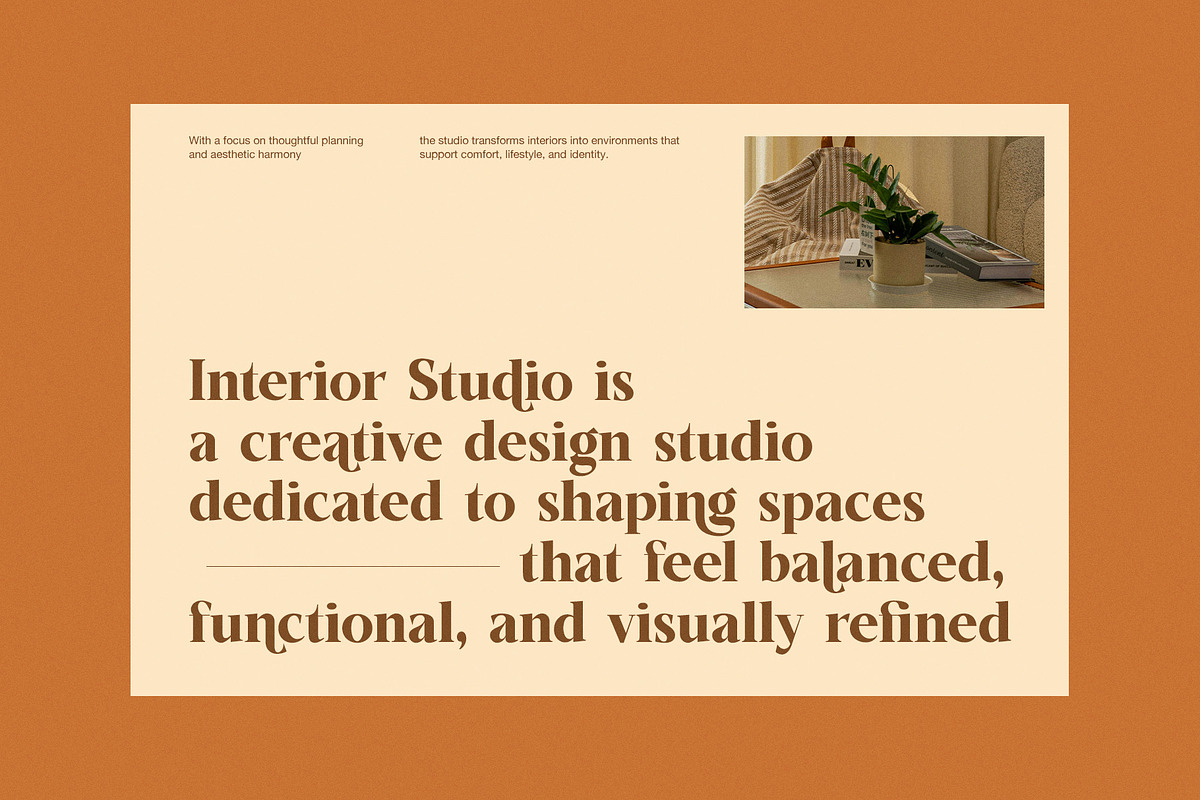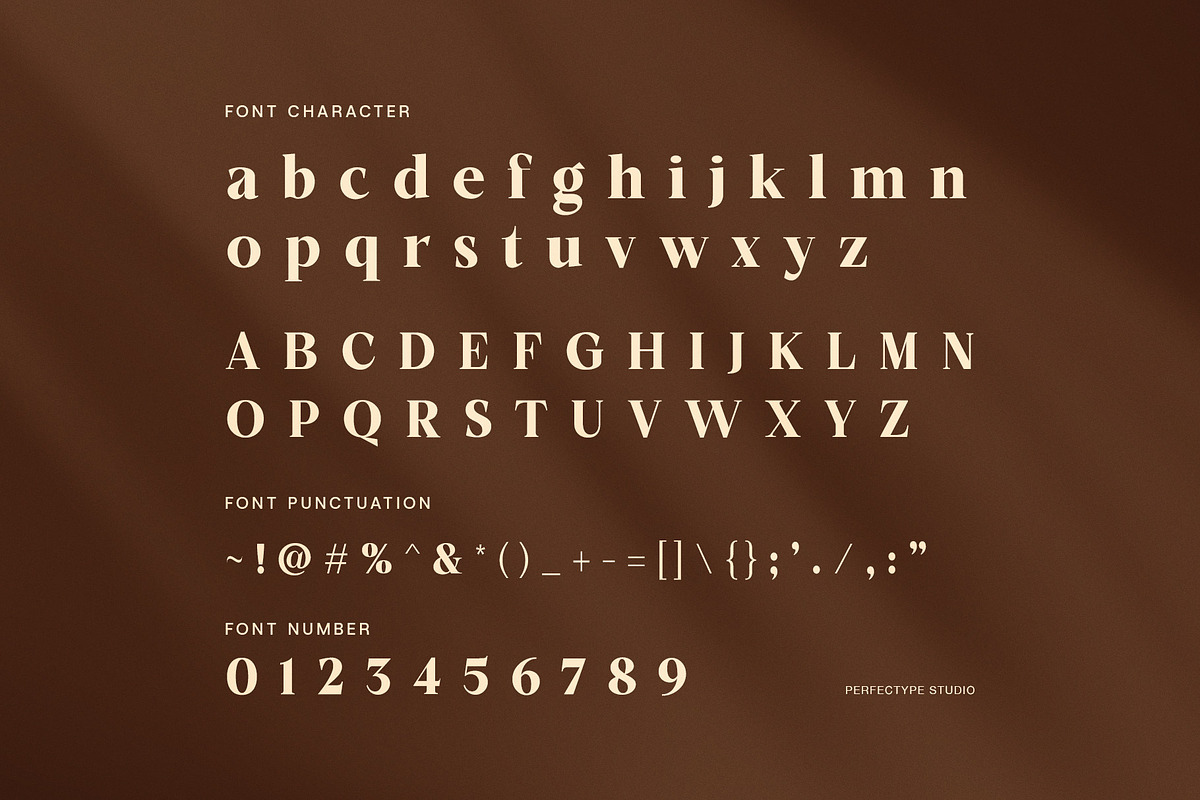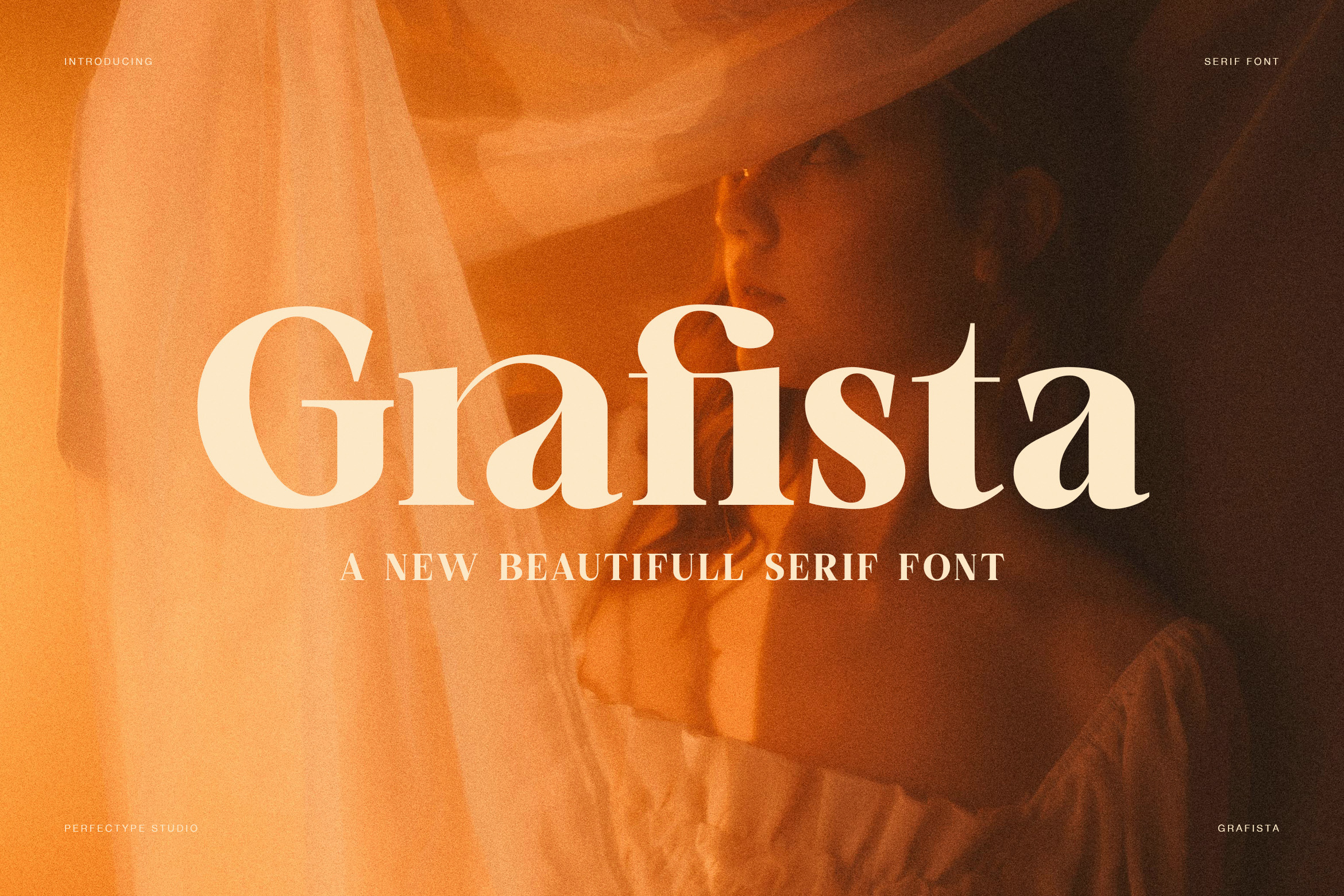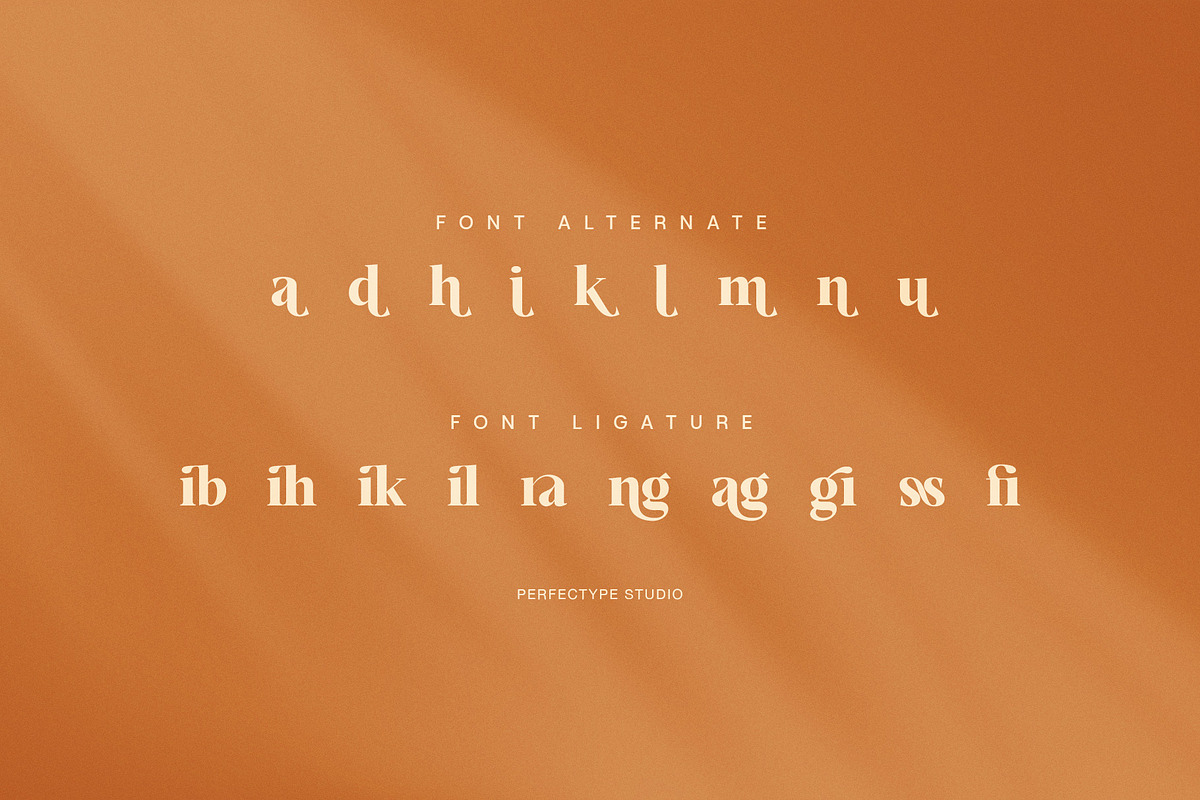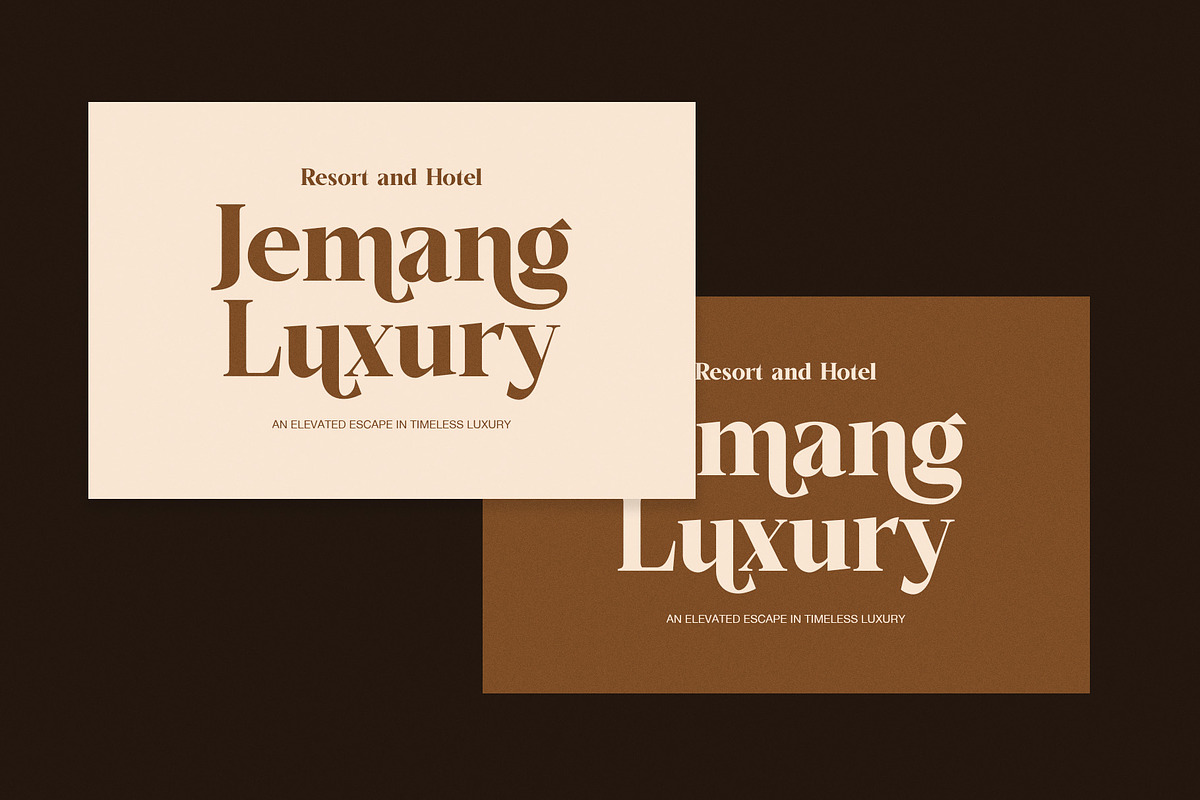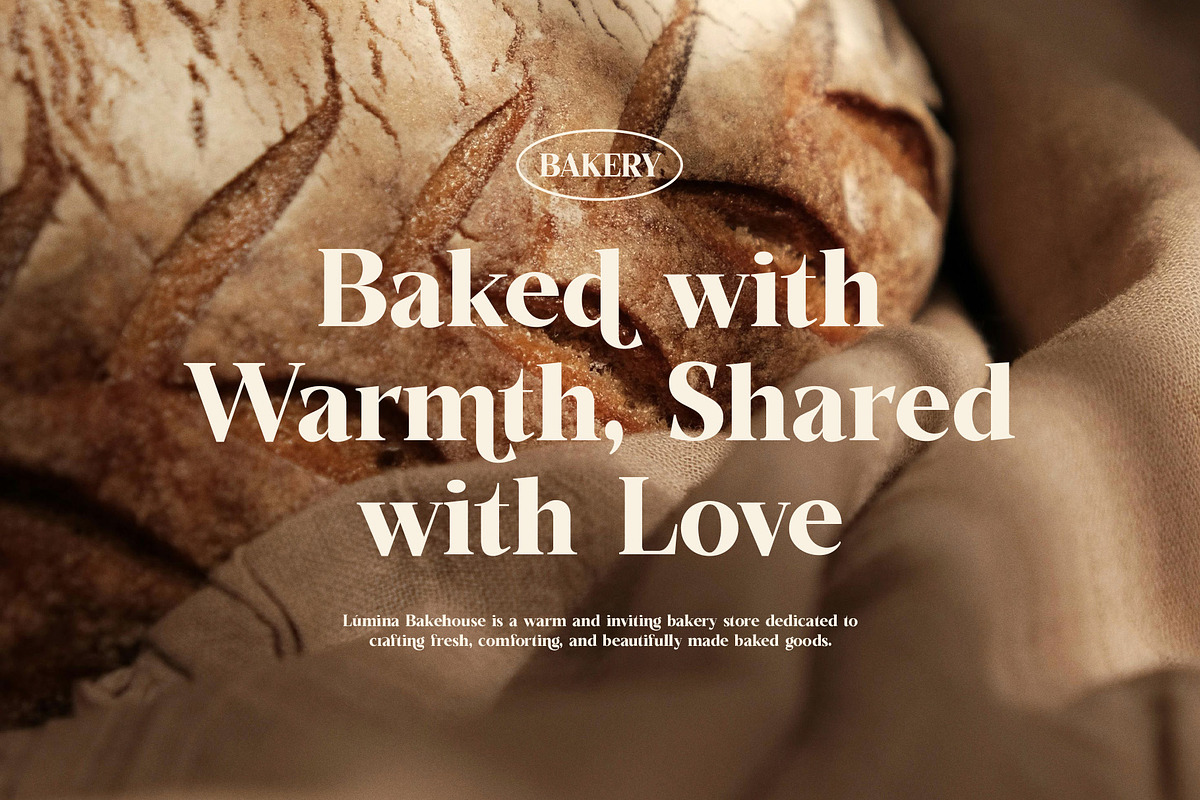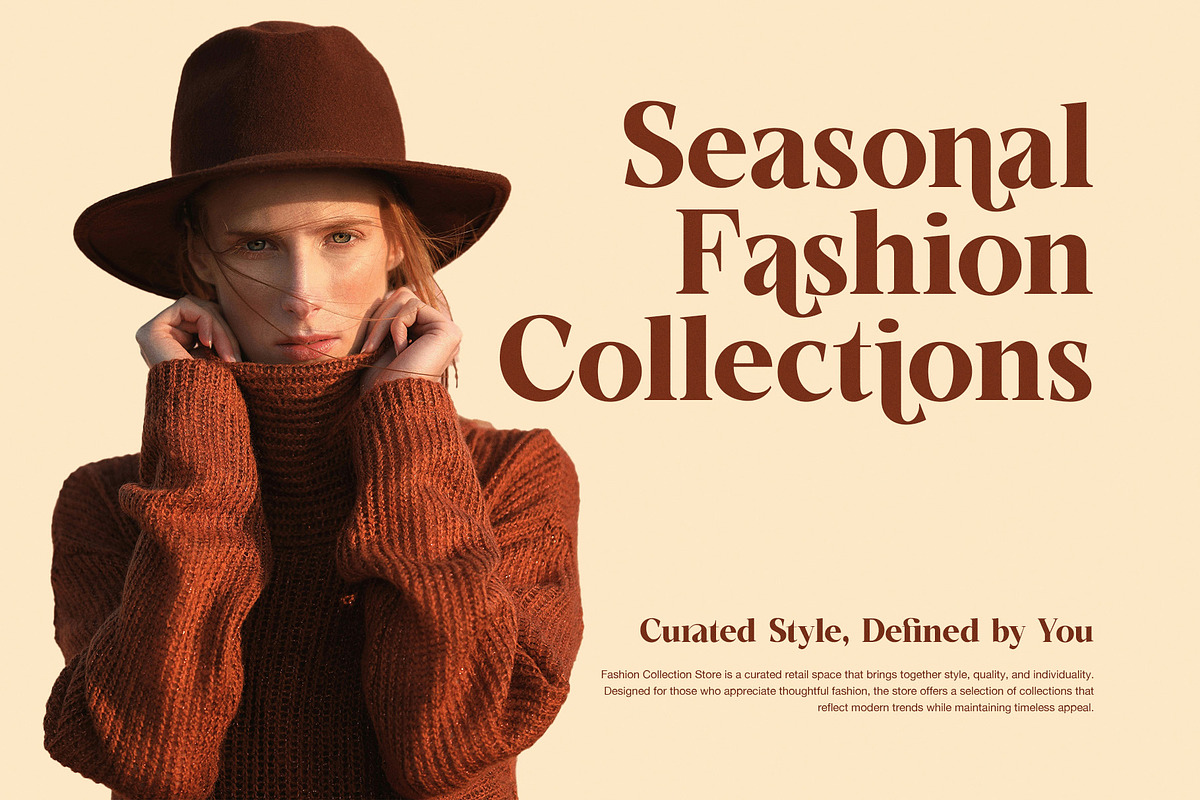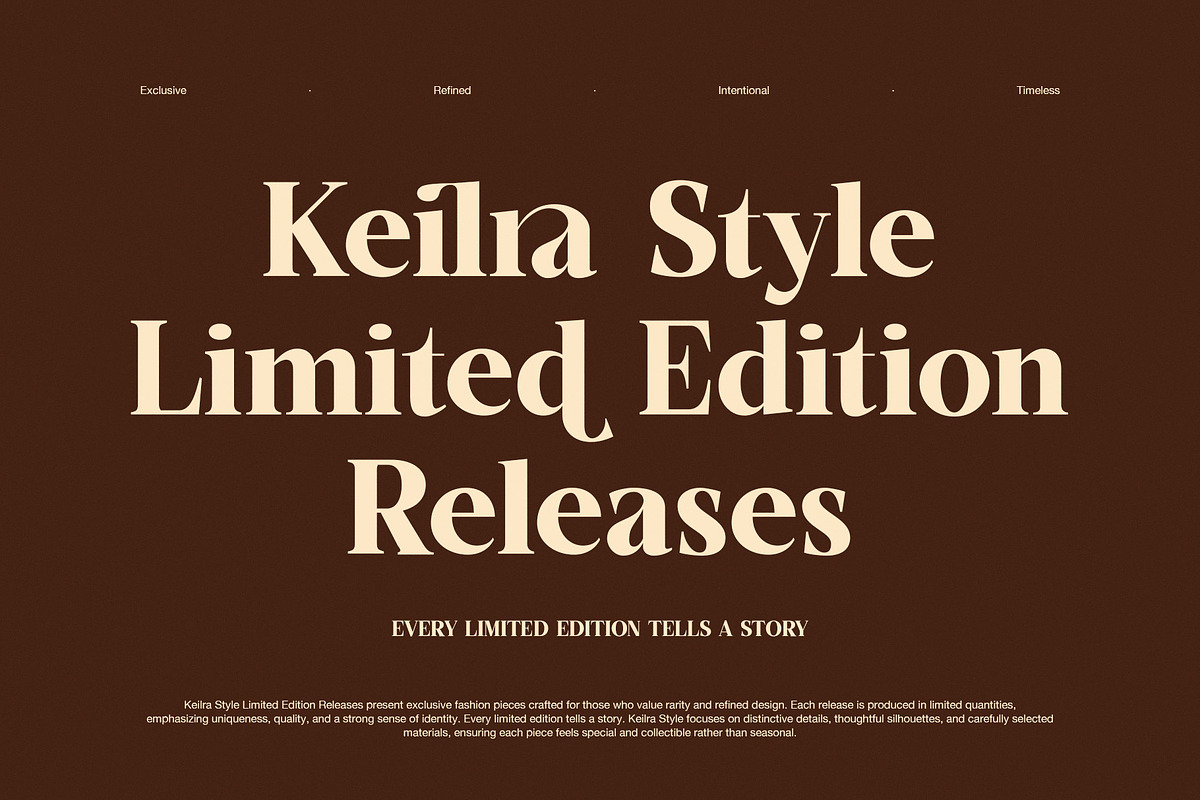
Grafista Elegant Luxury Serif Font
Grafista is an elegant luxury serif font designed to bring refinement and warmth to modern branding. It blends classic serif structure with soft curves and balanced proportions, so every word feels calm, confident, and timeless. Because of its clean shapes and graceful contrast, Grafista reads beautifully in both large headlines and smaller text.
This font works especially well for fashion, lifestyle, interior, hospitality, and bakery designs. Moreover, its warm personality helps brands feel welcoming while still appearing premium. Whether you design packaging, websites, editorials, or social media graphics, Grafista adds a polished and intentional tone.
Grafista includes carefully crafted uppercase and lowercase letters, numbers, punctuation, alternates, and elegant ligatures. As a result, you can create distinctive typography that feels custom without extra effort. The alternate characters introduce subtle variety, while the ligatures produce smooth, natural letter connections.
Why designers choose Grafista
Elegant serif style with a modern luxury feel
Beautiful contrast for striking headlines
Warm character suitable for lifestyle brands
Alternates and ligatures for unique typography
Clear readability across print and digital media
In addition, Grafista adapts easily to many visual themes. It pairs perfectly with minimalist layouts, earthy palettes, or rich editorial imagery. Because the letterforms are refined but not fragile, the font remains readable while still feeling exclusive.
Use Grafista for logos, fashion campaigns, magazine titles, hotel branding, product packaging, wedding materials, and interior presentations. It also performs well in upscale food branding, where warmth and quality matter. Therefore, designers can rely on one font for many premium projects.
Overall, Grafista offers a rare balance of elegance, clarity, and versatility. It feels classic yet contemporary, luxurious yet approachable. If you want typography that communicates trust, beauty, and sophistication, Grafista delivers a timeless solution.